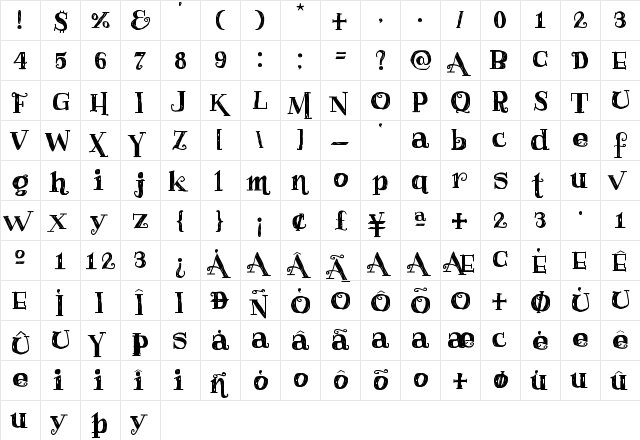
Haggard Frog Demo Regular
| Designer | Haggard Frog Demo |
Haggard Frog Demo is a composed and adaptable typeface that performs quietly and consistently across a wide range of design contexts.